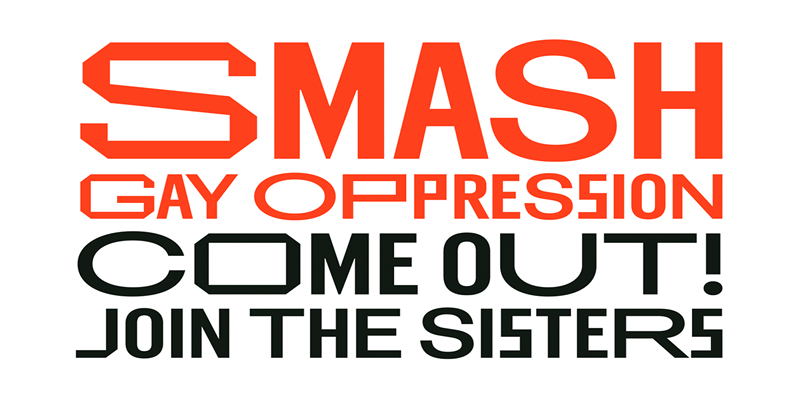
Today’s font is a special commemorative typeface that resembles the 50th anniversary of Pride and the Stonewall uprising. Find it on different desktop and web formats and also SVG. An special release by Feeld